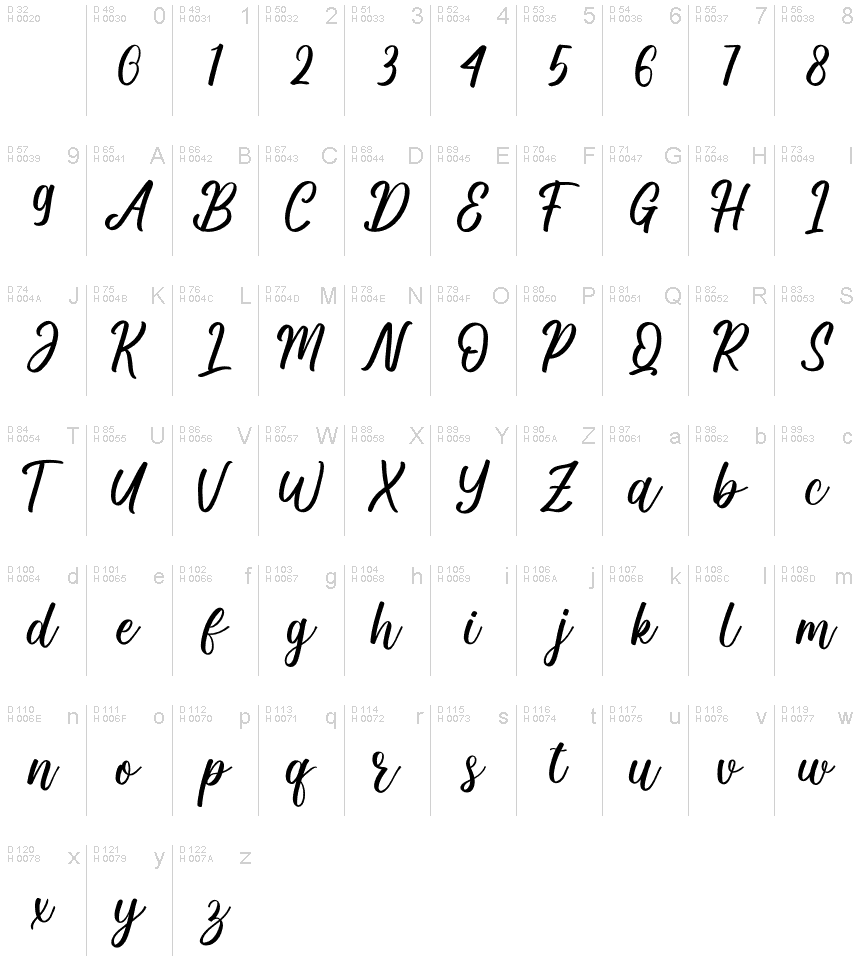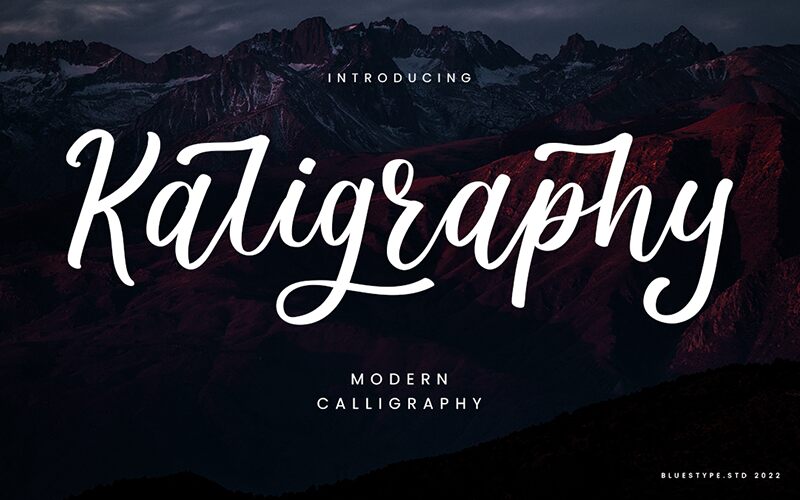
Kaligraphy
Meet Kaligraphy, a modern calligraphic font designed by Jefri Dwi Alfatah. Its beautiful curves and unique strokes create an elegant and sophisticated look that is perfect for wedding invitations, greeting cards, branding projects, and more. The semi-condensed width of the font allows for more text to fit in tight spaces without sacrificing legibility. With its versatile style, Kaligraphy can be used for both formal and casual designs. Let your creativity flow with this beautiful font that will surely make any project stand out!
Jefri Dwi Alfatah